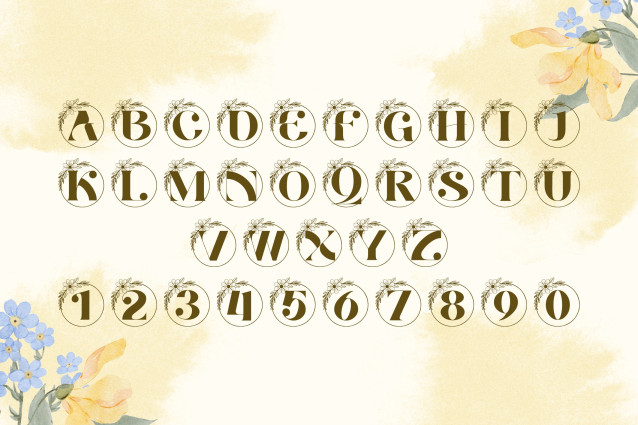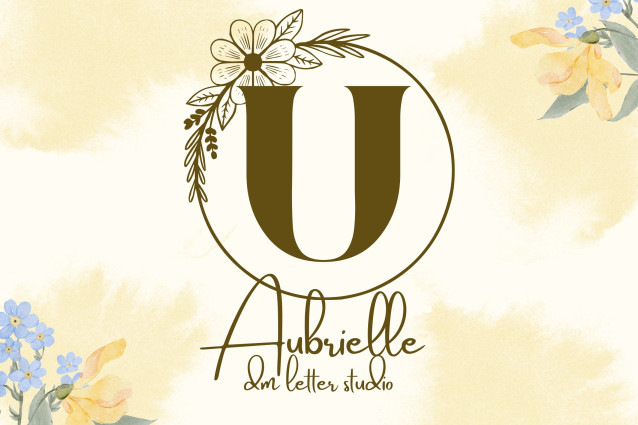
Aubrielle Monogram Font
Aubrielle Monogram Font is a graceful and feminine script font designed specifically for monogram use. Featuring elegant, flowing strokes and timeless charm, each uppercase letter stands beautifully on its own or paired as luxurious initials. Perfect for wedding branding, signature logos, invitations, and high-end personalized gifts, Aubrielle Monogram brings classic beauty and soft sophistication to every design.